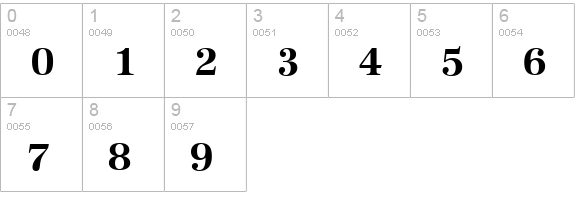
Antiqua-Bold Font Details
Antiqua-Bold is a strong, high-contrast variant in the Antiqua typeface family \xE2\x80\x94 well suited to headlines, attention-grabbing titles, and strong calls-to-action.
Antiqua-Bold is a timeless and elegant font that exudes sophistication and class. Its bold and commanding presence makes it perfect for headlines, titles, and other attention-grabbing text. With its classic serifs and clean lines, Antiqua-Bold adds a touch of refinement to any design project. And the best part? Antiqua-Bold is available for free download at FontsMarket.com. That's right, you can enhance your projects with this stunning font without spending a dime. Don't miss out on the opportunity to elevate your designs with the beauty and versatility of Antiqua-Bold. Download it today and let your creativity soar!